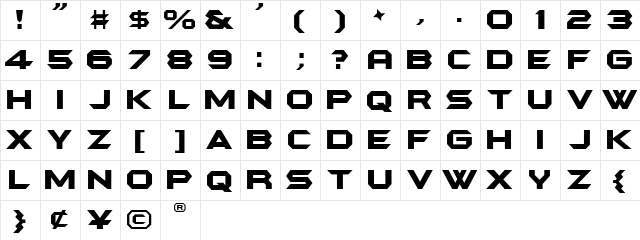
BatmanForeverRoman Regular
Design Context for BatmanForeverRoman Typeface
BatmanForeverRoman is a composed and adaptable typeface that performs quietly and consistently across a wide range of design contexts.